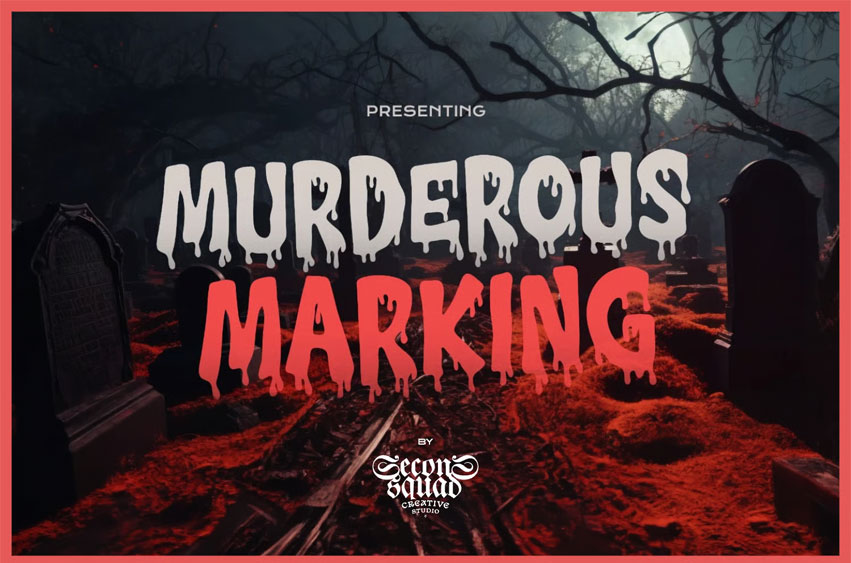
Murderous Marking Font
Murderous Marking Font is a chilling Halloween font carved with creepy precision and dripping in gothic horror. Its sinister strokes slash across the page like a killer’s signature—perfect for scary movie posters, horror titles, thriller covers, and witchy branding that crave the presence of evil. Each letter oozes spooky tension, weaving shadows of mystery, death, and monstrous terror.
From haunted Halloween flyers to gothic death notes, Murderous Marking leaves a mark your audience won’t forget. Whether you’re crafting a witch’s curse invitation, a deathly thriller poster, or a monster-filled horror logo, this font delivers fear, style, and unforgettable darkness in every design.